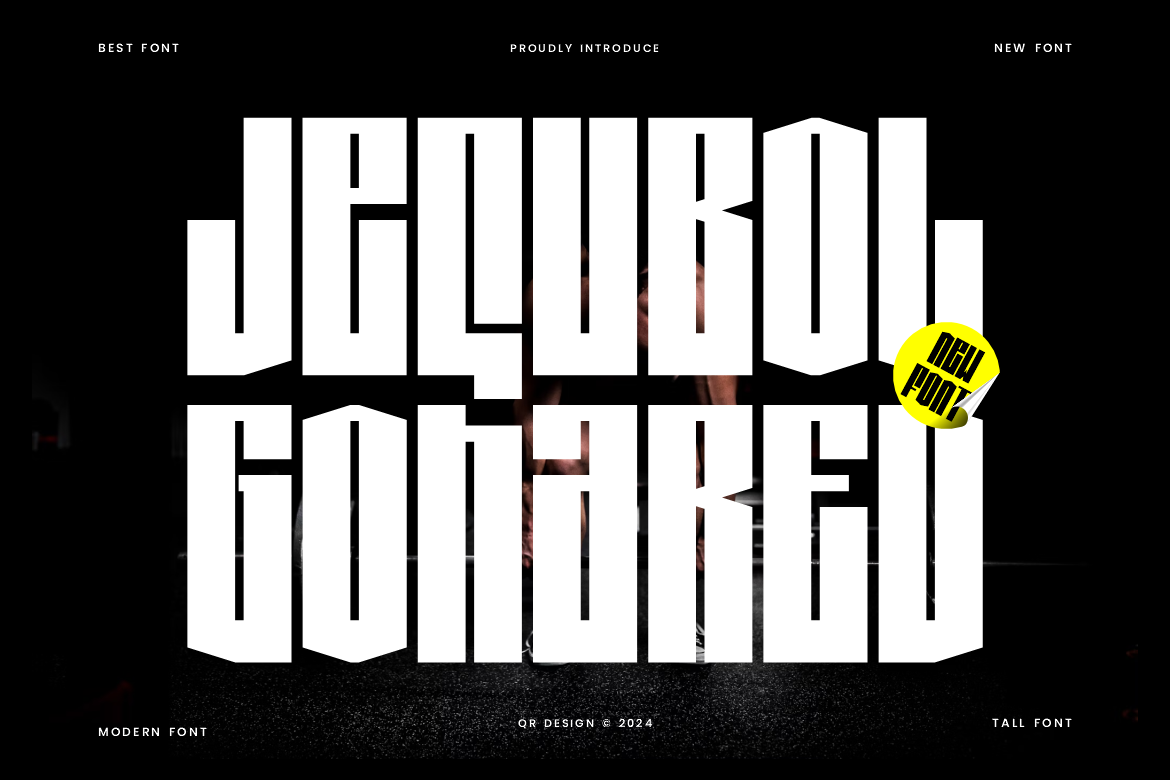
Jequbol Gohared Tall Condensed Font
Jequbol Gohared Font is a bold and authentic display font. The font is suitable for any branding project like poster, logo, sport, and many more. Outstanding in a wide range of contexts.